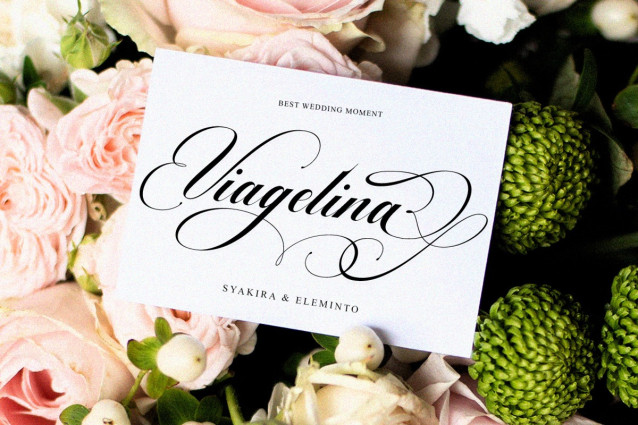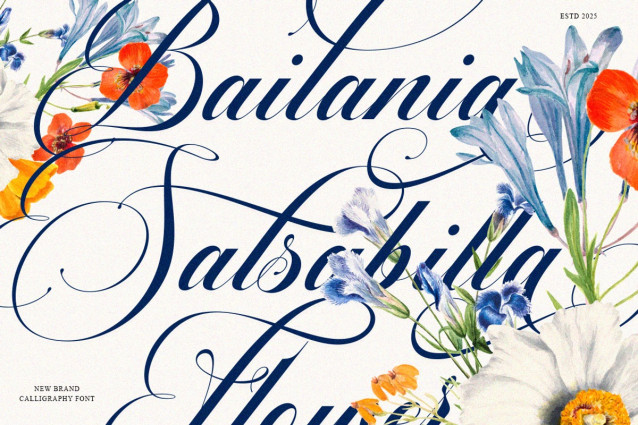
Barlimena Calligraphy Font
Barlimena Calligraphy Font – Barlimena Script Italic & Regular Barlimena Script is an elegant script typeface that blends the timeless beauty of classic copperplate calligraphy with a modern decorative touch. Designed with meticulous detail, this typeface presents a stylish, graceful, and sophisticated look. Its smooth curves, refined letterforms, and feminine charm make it both glamorous and easy to read, enhanced by a variety of beautiful joins and stylistic alternatives.
Perfect for both formal and creative applications, Barlimena Script is perfect for invitations, logos, fashion branding, makeup and beauty products, restaurant menus, stationery, book or magazine titles, greeting and wedding cards, packaging, labels, and various advertising purposes.